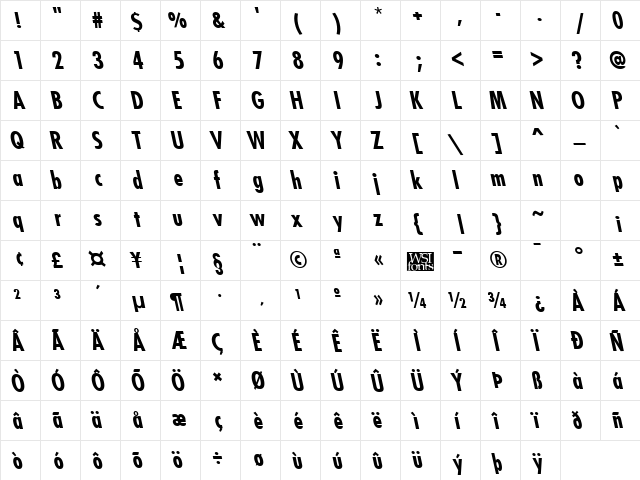
FuturistLeftyCondensed Bold Font Preview
Design Context for FuturistLeftyCondensed Typeface
FuturistLeftyCondensed has a distinctly futuristic character, with geometric precision and clean angles that feel at home in technology, gaming, and sci-fi contexts. Its bold stroke weight gives it real presence on the page. The condensed width makes it efficient for tight spaces without sacrificing legibility.